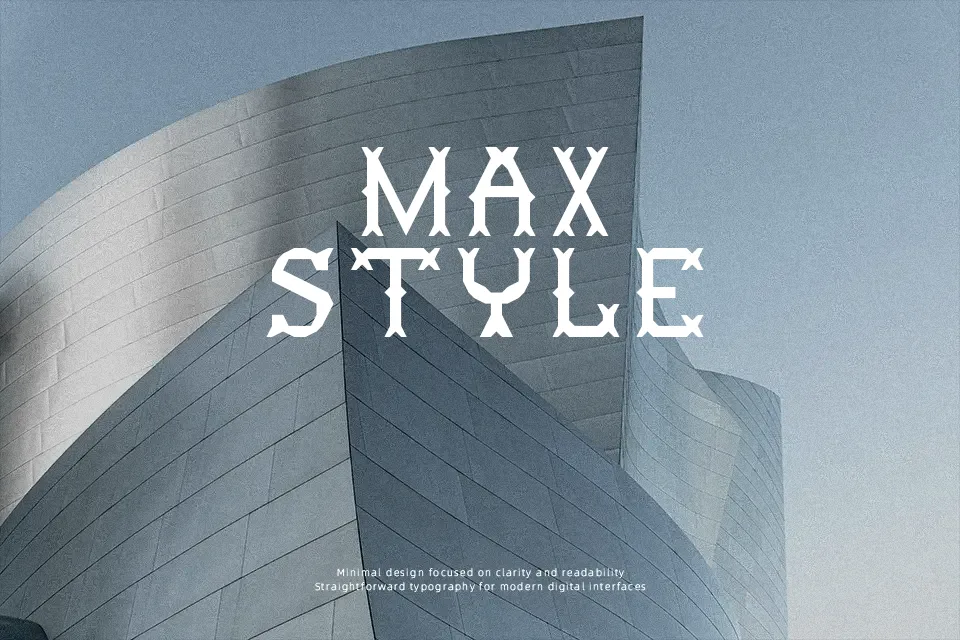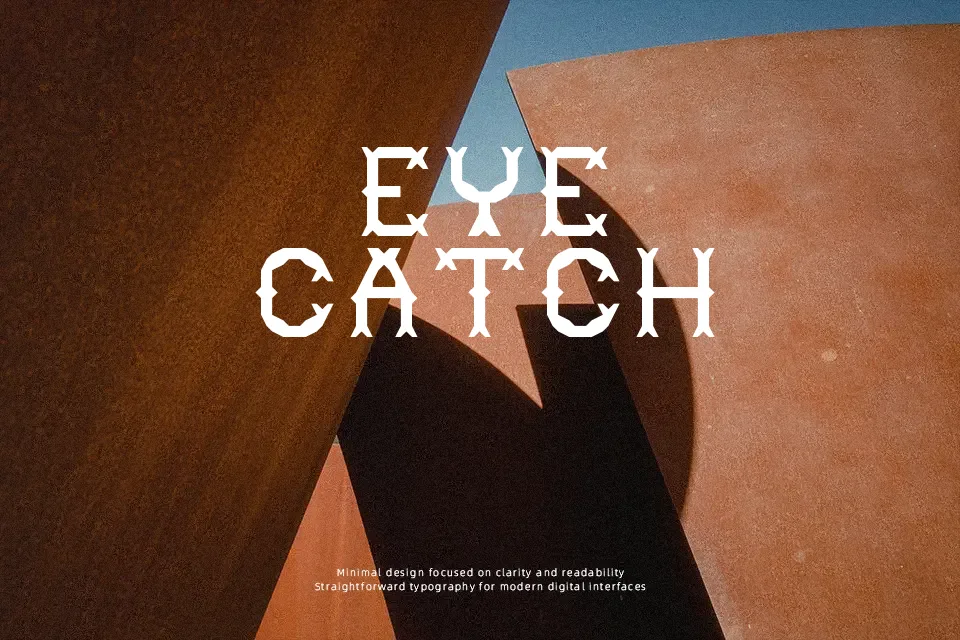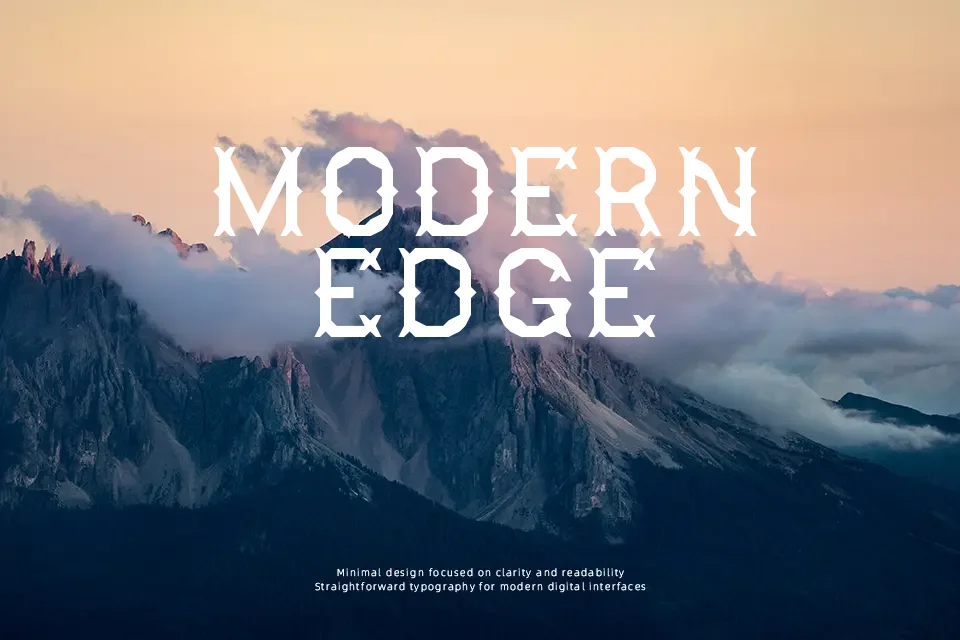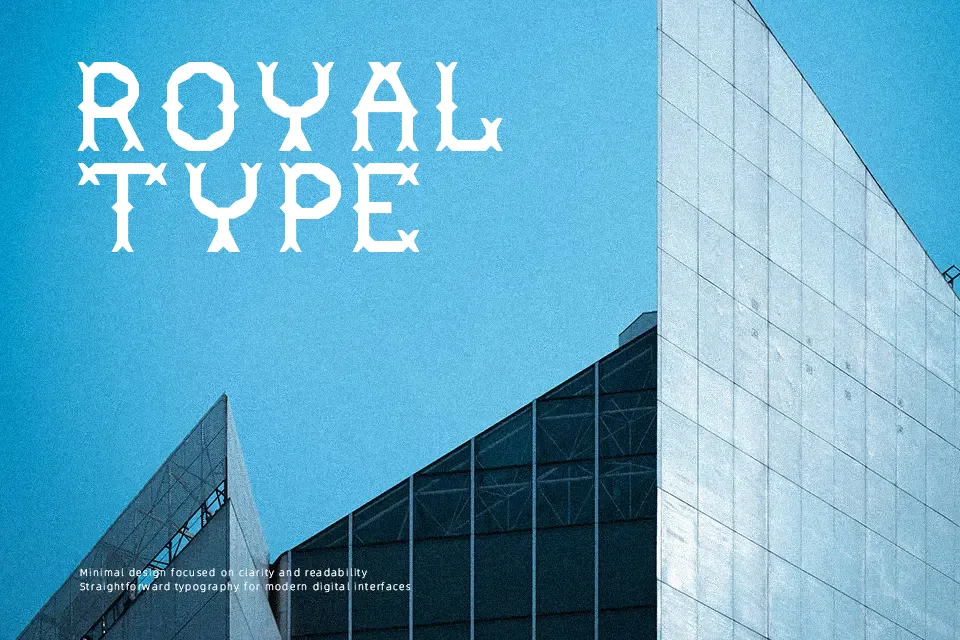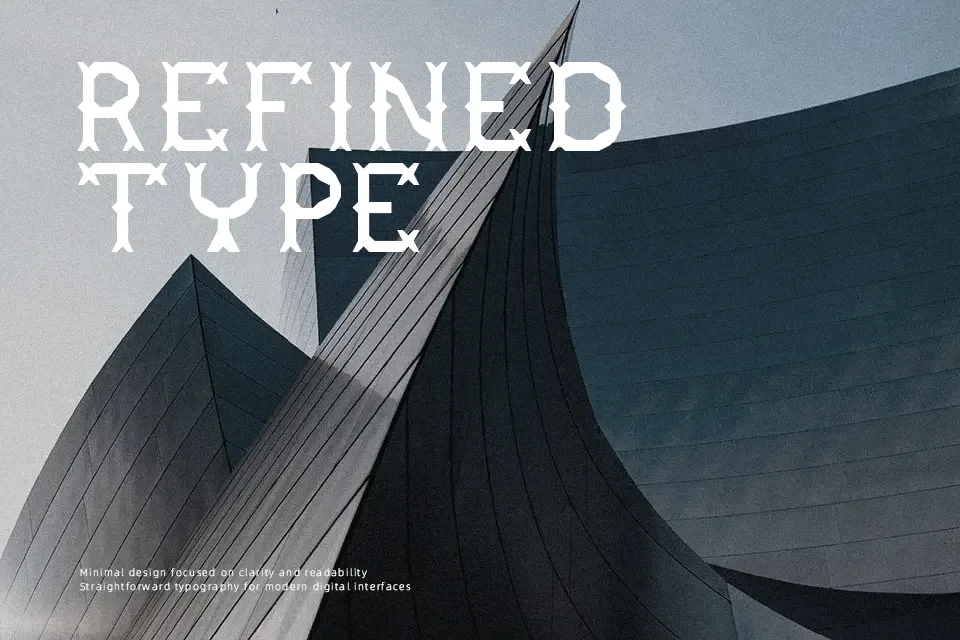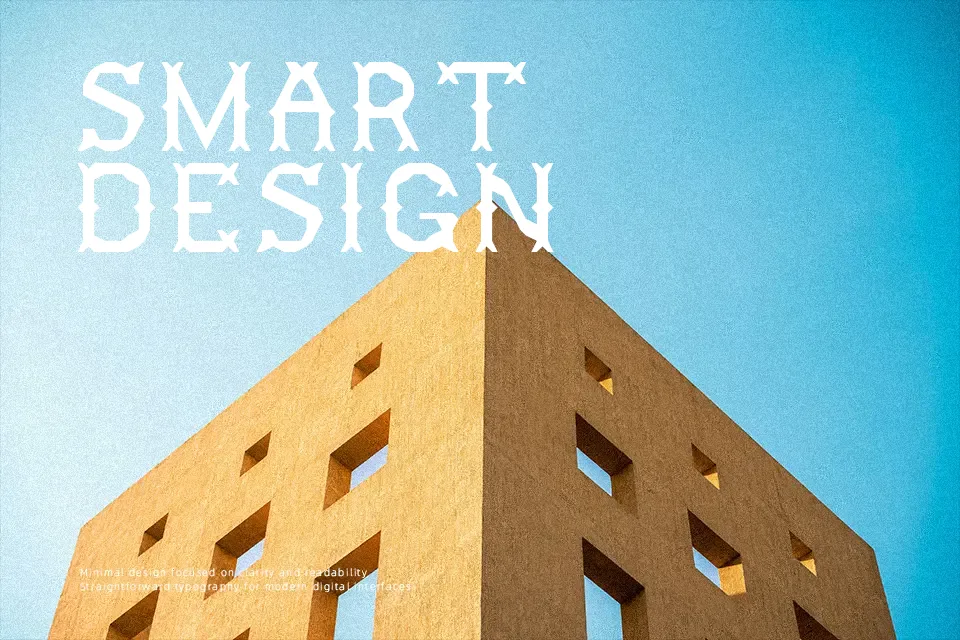
Ringling Font
Designed by James Vipond
The structure of Ringling Font immediately stands out with its bold strokes, robust proportions, and classic western influences. The letterforms carry a heavy, commanding weight balanced by open internal spacing, ensuring that individual characters remain highly legible in large display text. Its dense forms and pronounced decorative elements provide excellent visual impact for striking poster headlines, retro branding, and rugged logo designs. The substantial stroke contrast enhances character presence across various creative formats. However, these same heavy characteristics make the typeface less suitable for long paragraphs or continuous reading. The generous structural width demands ample layout room, meaning small captions may lose clarity and feel overly crowded when scaled down too far.
Best For: vintage product packaging, music festival posters, retro branding, restaurant signage
Not Ideal For: long paragraph text, corporate reports, small interface labels